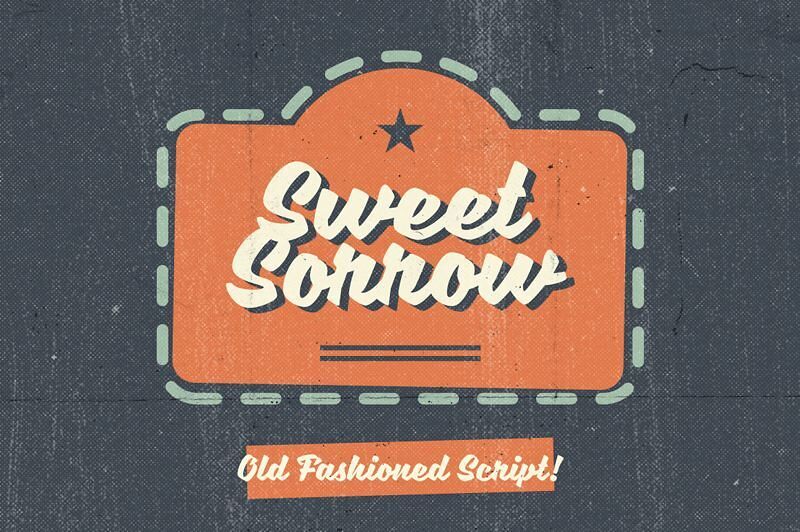
Sweet Sorrow Font
Sweet Sorrow is old fashioned script font that suitable for signage, t-shirt, logotype, or any vintage or retro related designs. Inspired by 1950s signs combined with modern dynamic curves to bring out the aesthetic impression of retro design style.